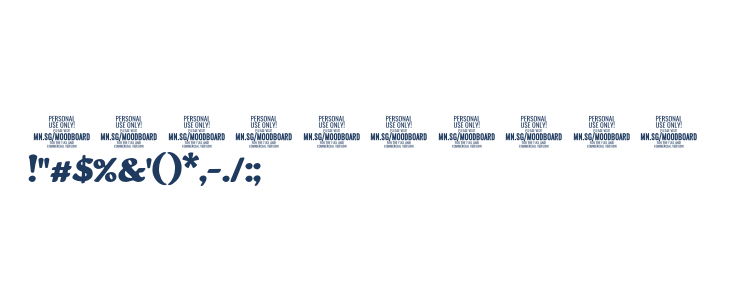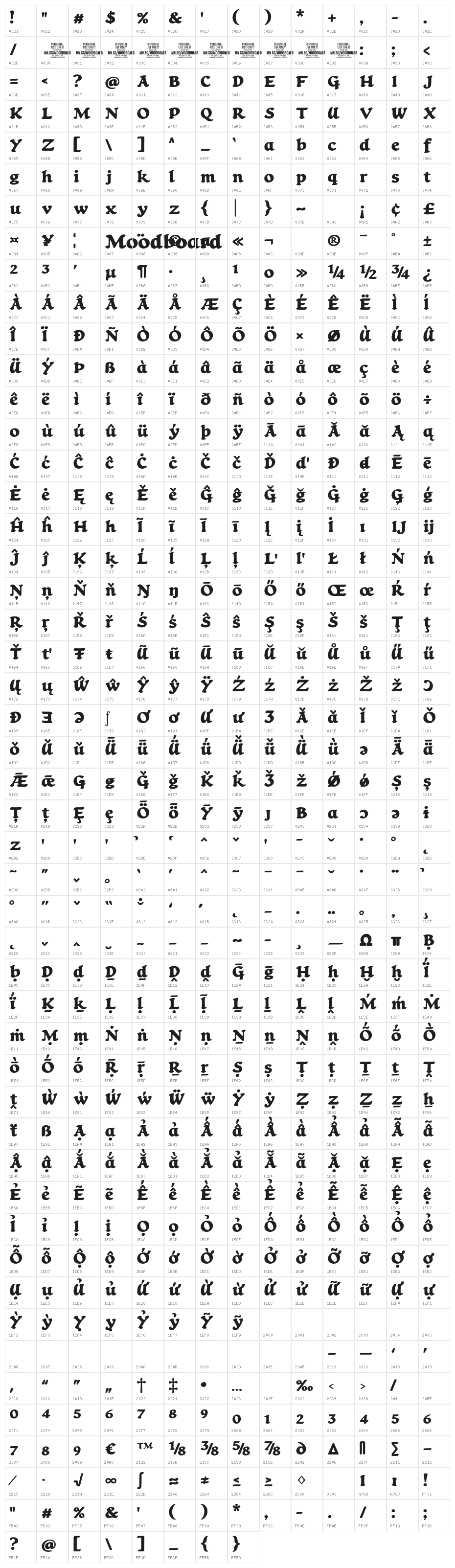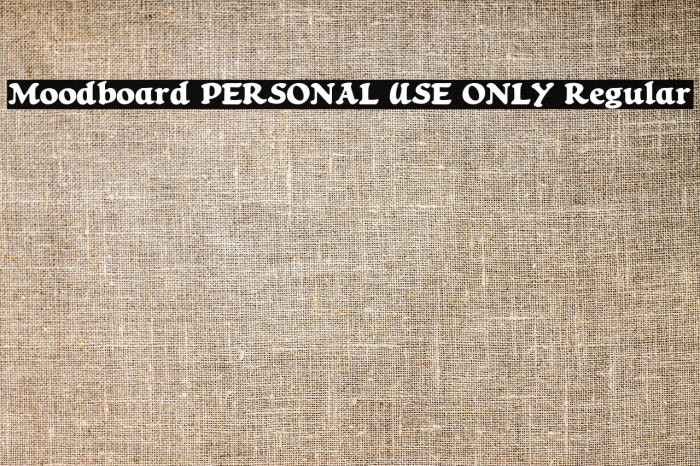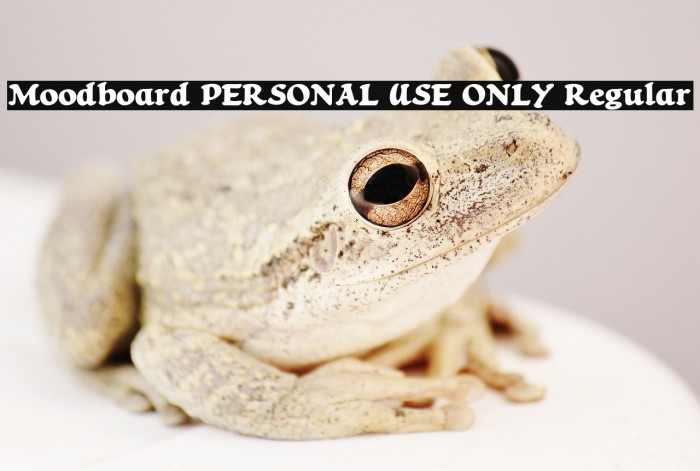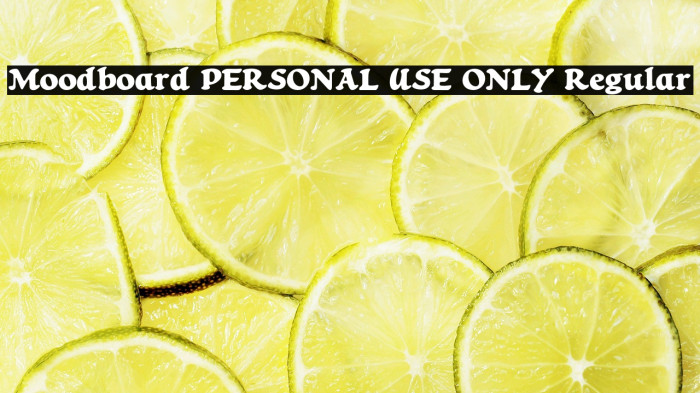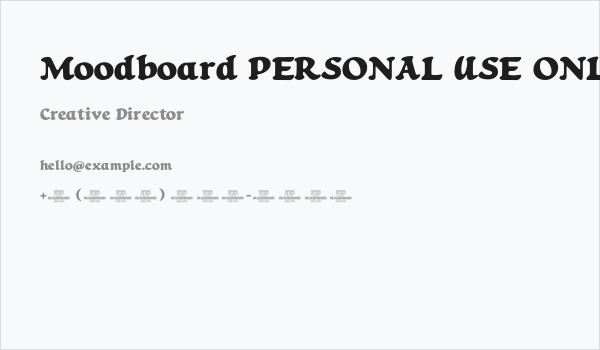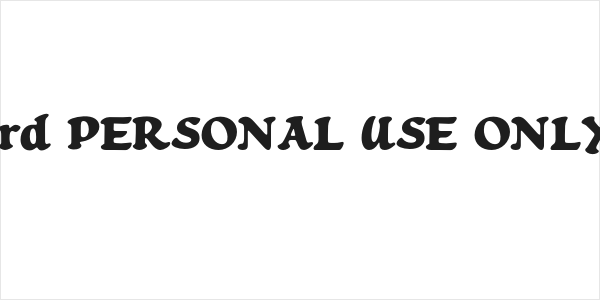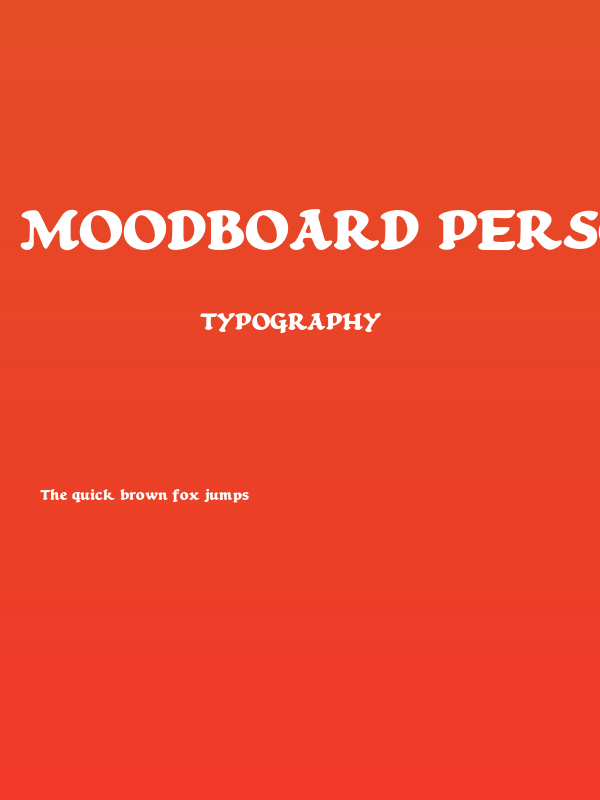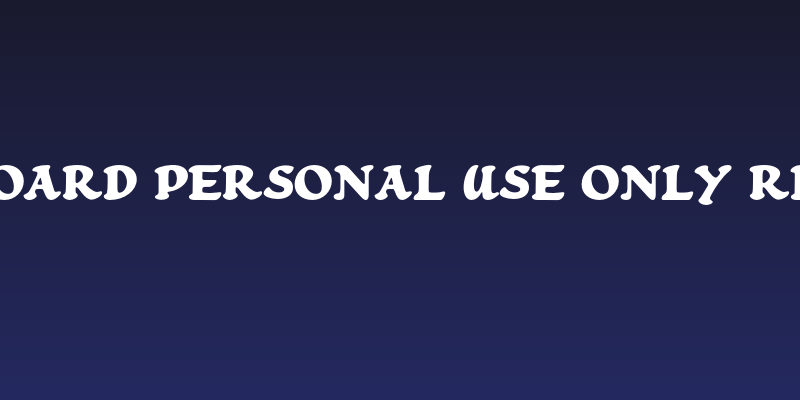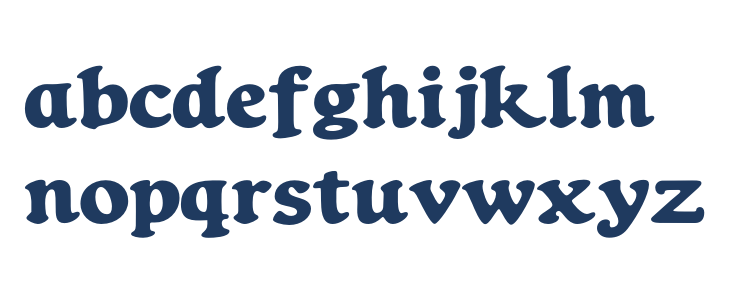
Moodboard PERSONAL USE ONLY Regular Font
Moodboard PERSONAL USE ONLY Regular Description
This font exhibits a bold, playful style with a strong presence. The characters are rounded and have a slightly whimsical feel, making them stand out in any design. The uppercase letters are robust and commanding, while the lowercase letters maintain a consistent and harmonious flow. The numbers and special characters are designed to complement the overall aesthetic, ensuring a cohesive look across all text elements. The font's unique style is suitable for projects that require a touch of creativity and fun.
| Overall Style | Playful, Creative |
| Proposed Projects | Ideal for children's books, playful branding, creative posters, and unique invitations. |